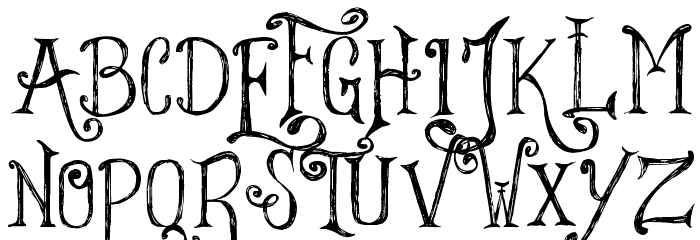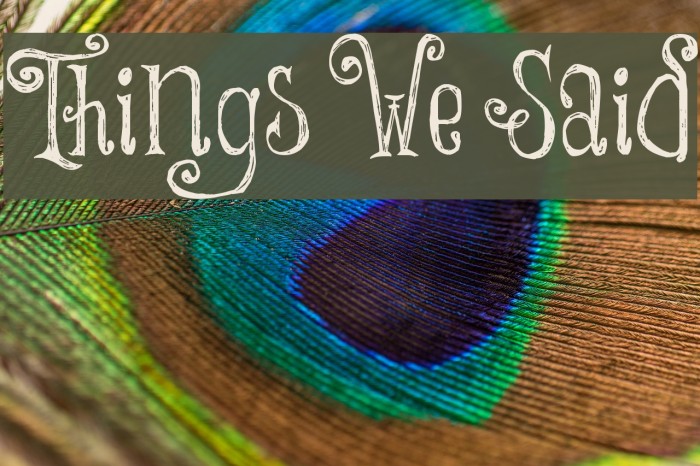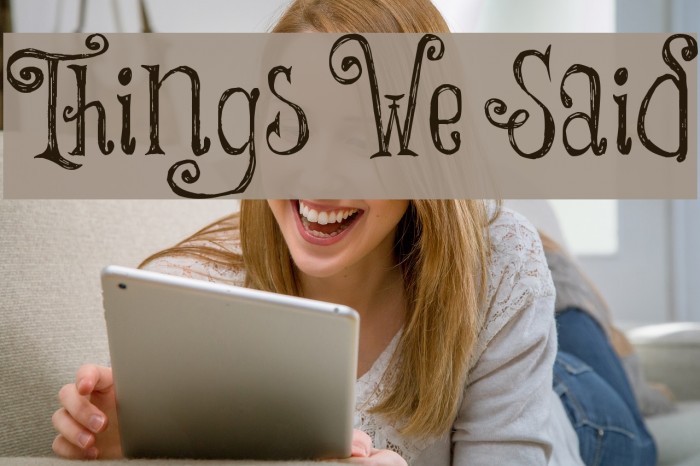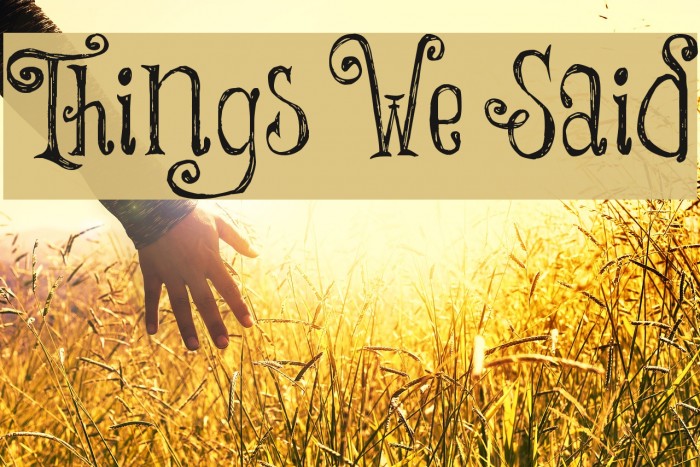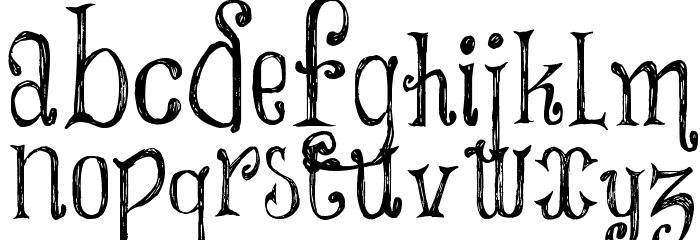
Things We Said Font
This font exudes a whimsical and decorative style, characterized by its ornate and intricate letterforms. Each character is adorned with flourishes and curls, giving it a playful yet elegant appearance. The strokes are uneven, adding a hand-drawn feel that enhances its artistic charm. The uppercase letters are particularly elaborate, with exaggerated serifs and loops, while the lowercase letters maintain a consistent decorative theme. The numbers and special characters follow suit, ensuring a cohesive look across all glyphs. This font is perfect for projects that require a touch of fantasy or a vintage aesthetic.
A whimsical and decorative font with ornate, hand-drawn letterforms.
• Proposed Projects: Ideal for invitations, greeting cards, book covers, and artistic posters.
• Category: Decorative/Display
• Overall Style: Decorative
• Use Case: Headlines, Logos